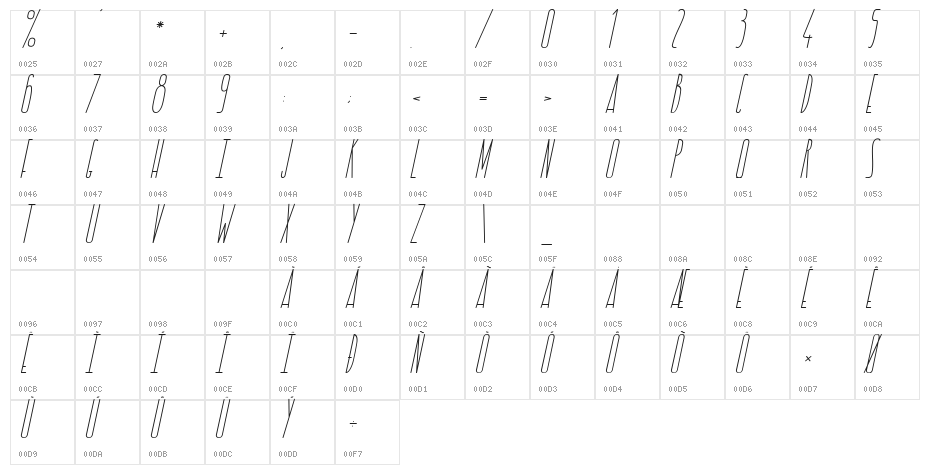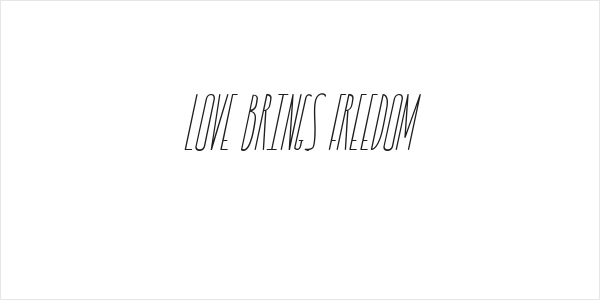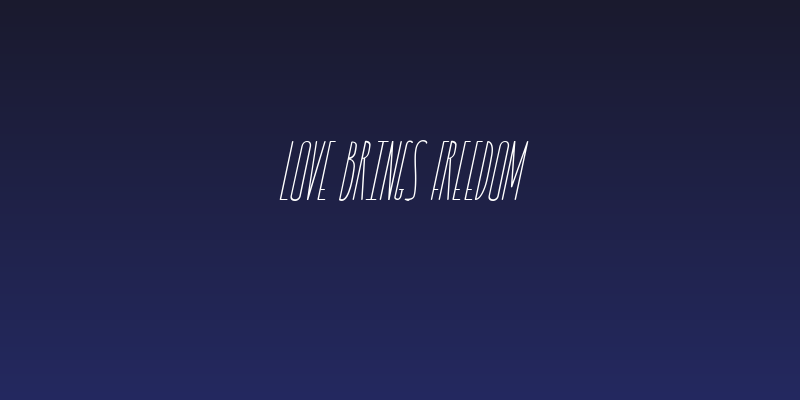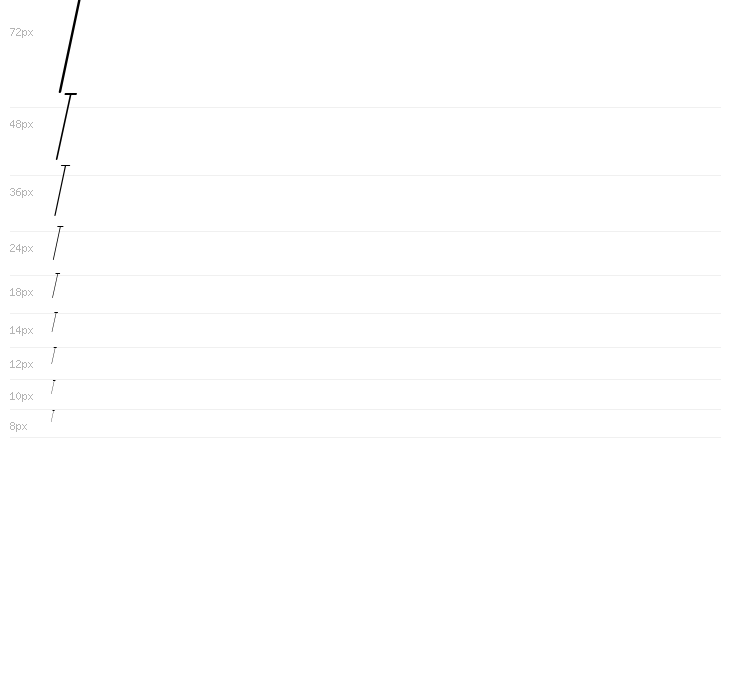
LOVE BRINGS FREEDOM Font
LOVE BRINGS FREEDOM Description
This font features an elegant, elongated design with a distinct slant, giving it a sophisticated and modern appearance. The characters are thin and tall, with a consistent stroke width that provides a sleek and streamlined look. The uppercase and lowercase letters maintain a uniform style, enhancing readability while adding a touch of elegance. Numbers and special characters follow the same design principles, ensuring a cohesive appearance across all text elements. The font's unique slant and elongated form make it ideal for projects that require a stylish and contemporary touch.
| Proposed Projects | Ideal for fashion magazines, luxury branding, modern posters, and elegant invitations. |